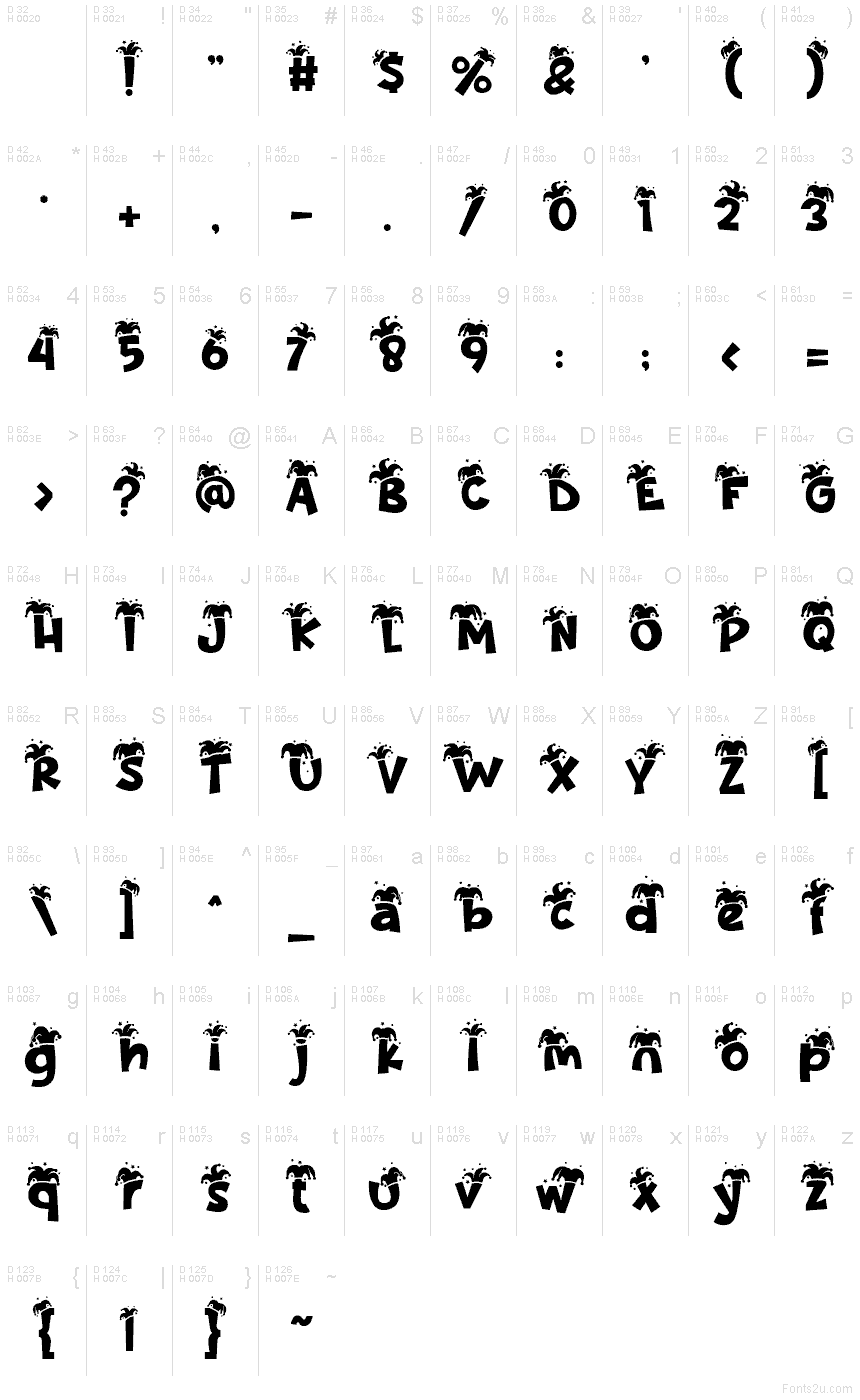
Night Clown Hat
Night Clown Hat font by PutraCetol Studio is a whimsical display font with bold shapes and ornamental elements. The unusual combination of forms makes it festive and bright, with uppercase letters decorated by lovely icons like circles, curves, stars, arrows and others.
All in all, this free decorative font can be used for children-related projects such as books and storyboards or occasions like Halloween, parties, traditions, holidays etc.